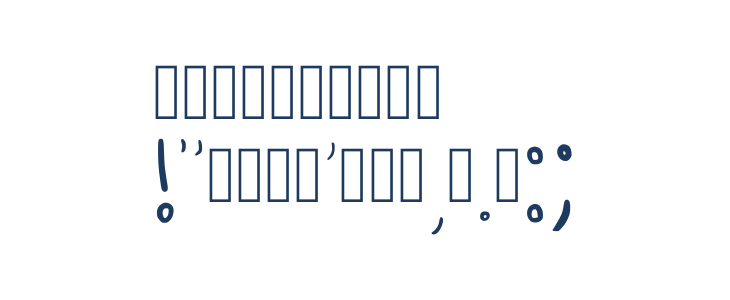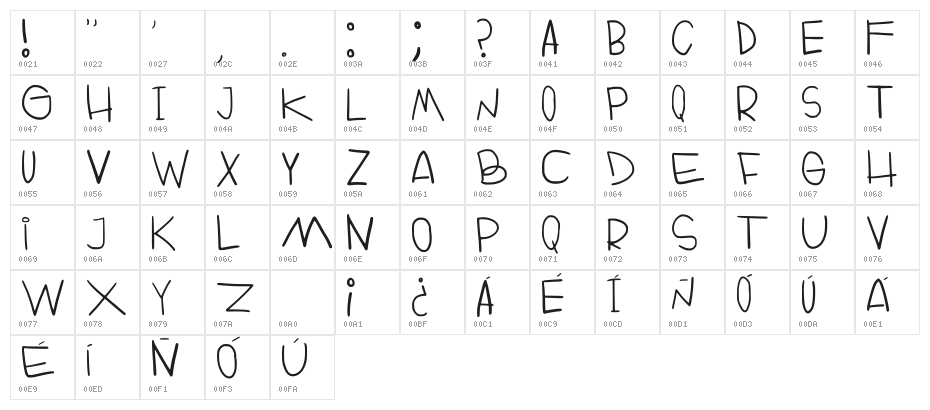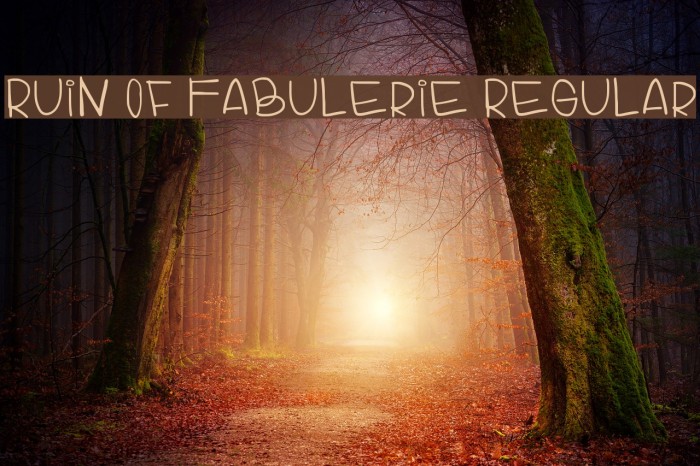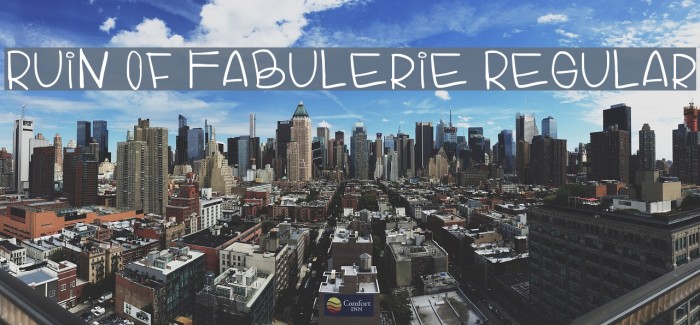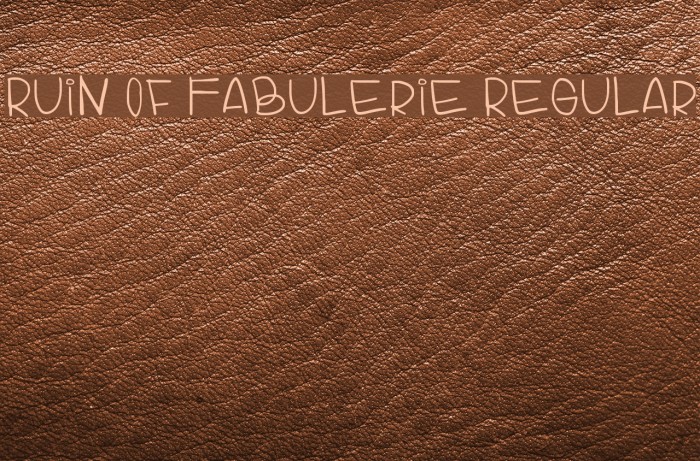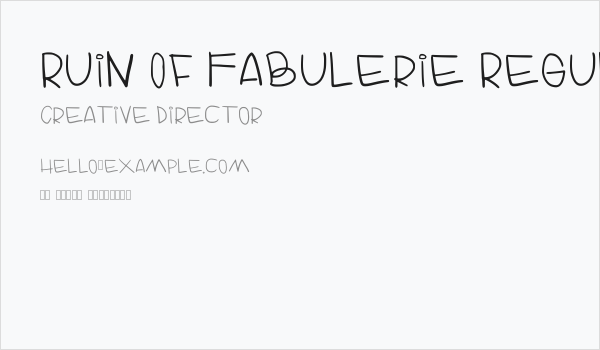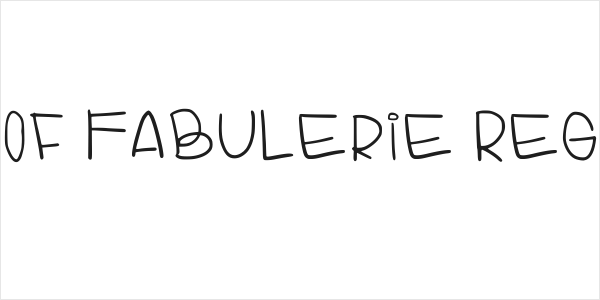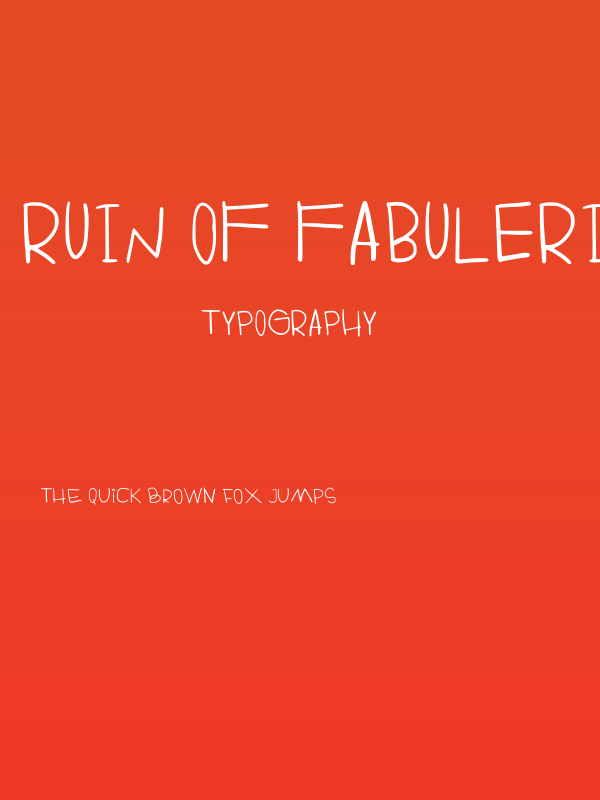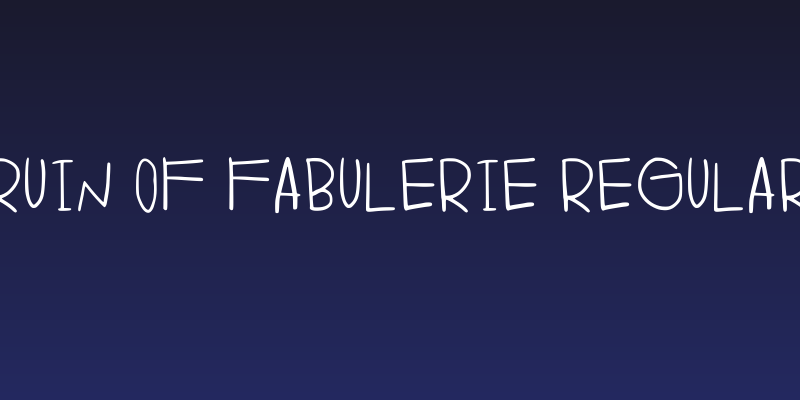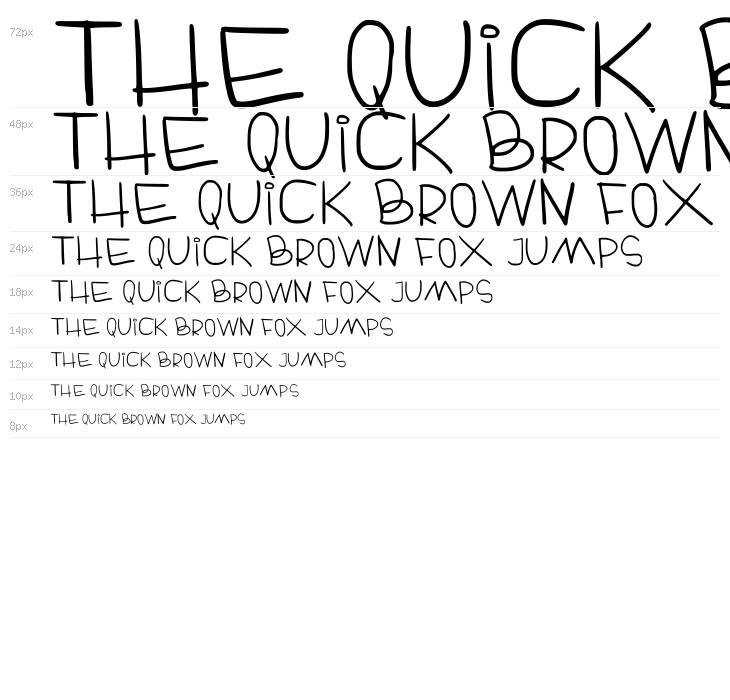
Ruin Of Fabulerie Regular Font
Ruin Of Fabulerie Regular Description
This font features a playful and whimsical handwritten style, characterized by its irregular and slightly uneven letterforms. The strokes are smooth and rounded, giving it a friendly and approachable appearance. The uppercase and lowercase letters maintain a consistent style, with a slight tilt that adds to its casual charm. The font includes a full set of uppercase and lowercase letters, numbers, and a selection of special characters. Its unique style makes it suitable for creative projects that require a personal touch.
| Use Case | Headlines, Creative projects, Branding |
| Proposed Projects | Ideal for children's books, greeting cards, creative posters, and playful branding. |